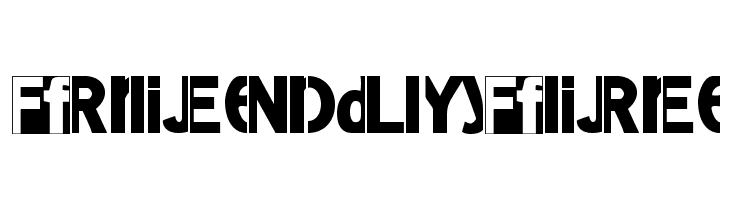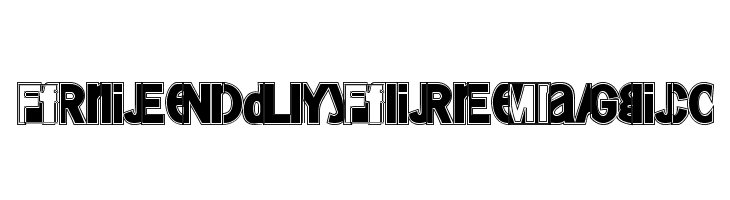
A bold, high-contrast font with a playful and artistic design.
A bold, abstract display font with high contrast and geometric patterns.
A bold, modern font with a stencil-like, futuristic design.
A bold, decorative font with a playful, three-dimensional style.